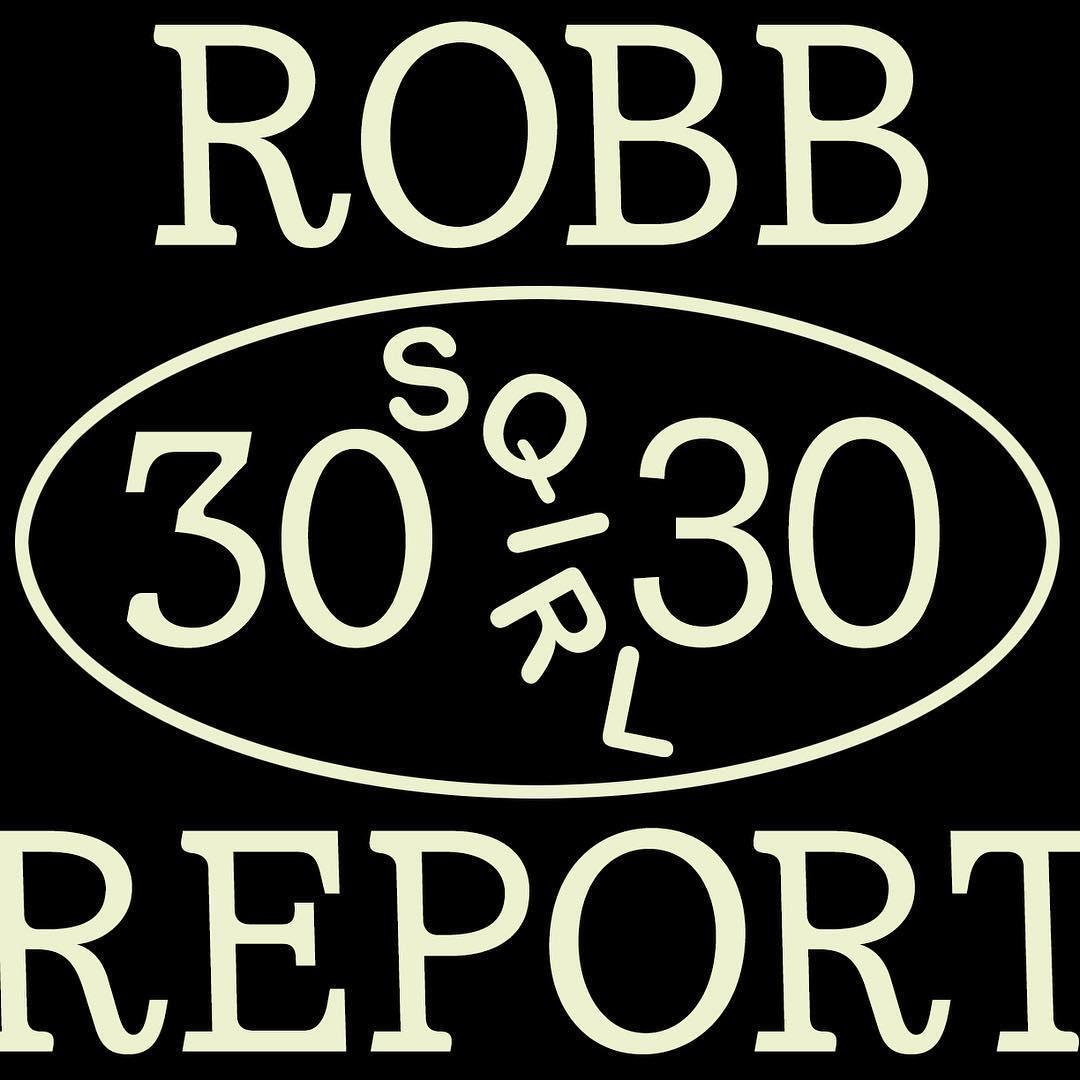
Looking for this slab serif font used by Restaurant Sqirl
I'd love some help identifying this slab serif, used by Sqirl restaurant here.
Looks to have a slight mono-spaced vibe, but I really like the playful and accessible energy some of the rounded terminals bring.